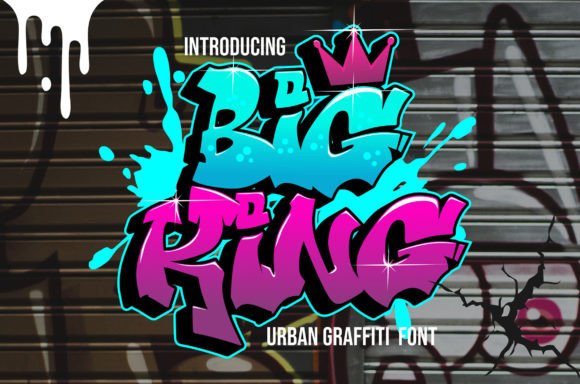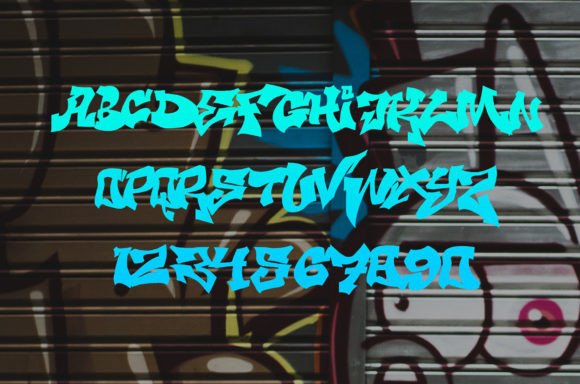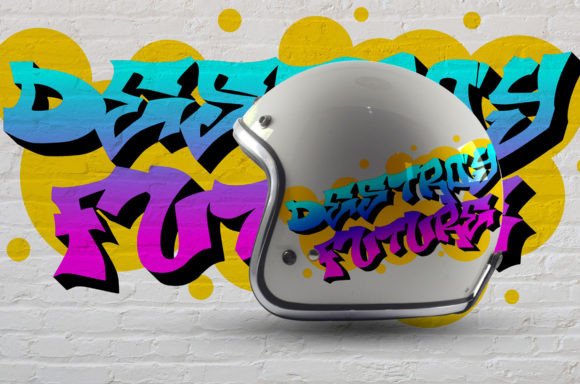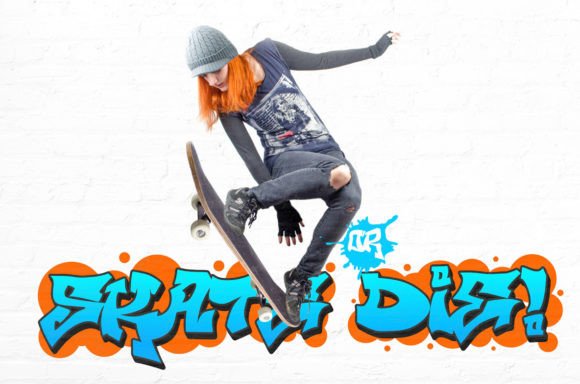
Big King Font: A Bold Graffiti Display Font for Creative Designs!
About the Big King Font
From logos to headlines, the Big King Font is the perfect choice for making a lasting impression. Big King is a spectacular display font with fatty and thick graffiti-style characters. It will elevate a wide range of design projects to the highest level, be it branding, headings, wedding designs, invitations, signatures, logotypes, wall art illustrations, apparel, labels, and much more!
Big King Font Usage Examples
Big King Font Example